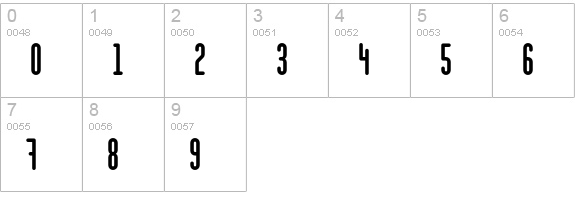
Marten Font Details
Introducing Marten, a stunningly modern font that exudes elegance and sophistication. With its sleek lines and refined curves, Marten is the perfect choice for those seeking a contemporary yet timeless typeface. This remarkable font captures attention with its unique blend of classic and modern elements. Its clean and crisp letterforms are meticulously crafted, making each character a work of art in itself. From its perfectly balanced proportions to its effortlessly flowing strokes, Marten is a true testament to the artistry of typography. But what truly sets Marten apart is its accessibility. This extraordinary font is not only visually appealing, but it is also freely available to download at FontsMarket.com. Yes, you read that right - Marten can be yours without spending a dime. Now, you can elevate your designs without breaking the bank. Whether you're designing a logo, creating a captivating headline, or crafting a stylish invitation, Marten is the ideal choice. Its versatility allows it to seamlessly blend into any project, adding a touch of sophistication and class. So, why wait? Embrace the beauty of Marten and download it today from FontsMarket.com. Unleash your creativity and let this remarkable font elevate your designs to new heights. With Marten, the possibilities are truly endless.